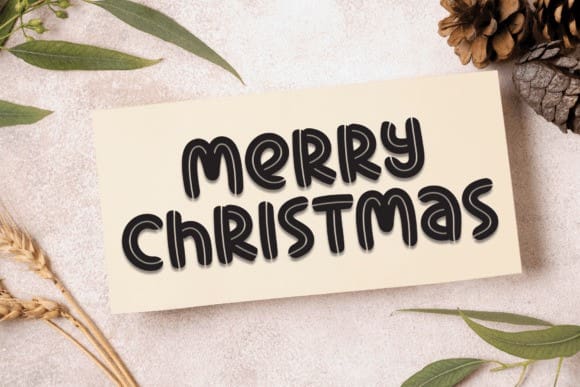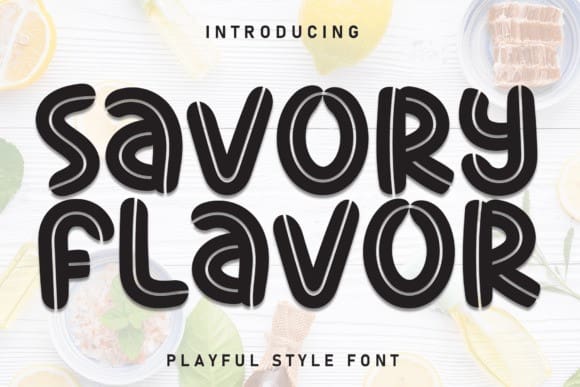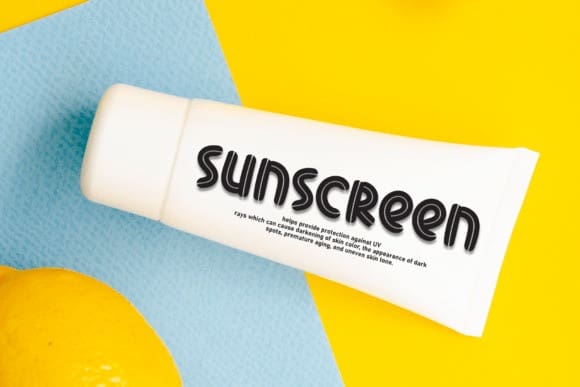
Savory Flavor Font
Savory Flavor Font a charming and affable handcrafted display font, sure to inject a dollop of joy into your designs. With its delightful and whimsical persona, this font harmoniously blends in with wedding invitations, greeting cards, quirky stationery, or any other project which calls for a sprinkle of fun. Crafted with care and brimming with character, it’s sure to add a playful twist to your design narrative.